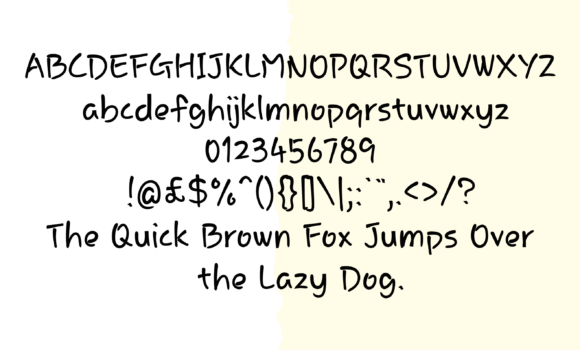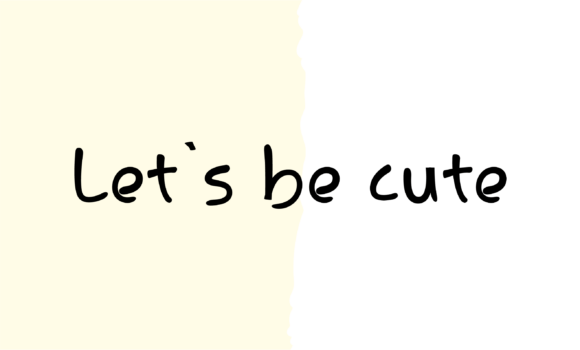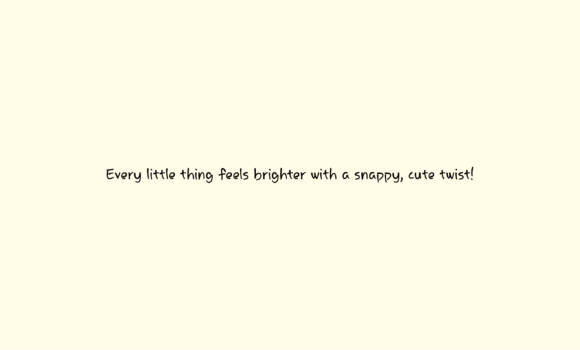
Introduction to Snappy Cute Font
Have you ever stumbled upon a design that instantly puts a smile on your face? For many creatives, that moment of pure joy is a result of discovering a high-quality design resource that elevates their project to the next level. For us, that moment came when we found the Snappy Cute Font – a playful, friendly font that captures a youthful, “doodle-like” spirit.
As designers, we’re always on the lookout for the perfect typeface to bring our creative visions to life. With its rounded terminals and casual structure, the Snappy Cute Font is an excellent choice for adding a lighthearted touch to any project. Whether it’s a children’s product, school poster, or social media content, this font is sure to deliver a sense of fun and approachability.
What sets the Snappy Cute Font apart is its ability to bring a smile to our faces, making it an invaluable design resource for any creative project. With its transparent background and free download, it’s easy to incorporate into your next design. So, let’s dive into the world of Snappy Cute Font and explore its endless possibilities!
Key Features of Snappy Cute Font
- Includes a range of characters and glyphs, including uppercase and lowercase letters, numbers, and special characters.
- Designed with a playful and modern aesthetic, making it perfect for adding a touch of whimsy to your creative project.
Honest Review: Snappy Cute Font
As a designer, I’m always on the lookout for high-quality design resources to elevate my creative projects. Snappy Cute Font has caught my attention, and I’m excited to share my honest review.
What works well: ✨ The font is incredibly versatile, making it perfect for a wide range of designs, from children’s books to social media graphics. The transparent background option allows for seamless integration with any background image or color. The free download is also a huge plus, making it accessible to designers of all levels.
What doesn’t work well: ⚠️ While the font is generally well-designed, some characters may appear slightly pixelated at larger font sizes. Additionally, the font family is relatively small, with only a handful of weights and styles available.
Overall, I’d say Snappy Cute Font is a solid addition to any designer’s toolkit. Its ease of use, high-quality design, and transparent background make it a great choice for a variety of creative projects. If you’re looking for a reliable font to add some visual interest to your designs, Snappy Cute Font is definitely worth considering.
Snappy Cute Font is a high-quality design resource perfect for your next creative project. With its adorable and playful style, this font is ideal for various applications.
Tips for Getting the Most Out of Snappy Cute Font
- Use the Snappy Cute Font in conjunction with other design elements to create a cohesive look.
- Experiment with different font sizes and styles to add visual interest to your design.
- Birthday invitations and party decorations.
- Children’s book illustrations and typography.
- Wedding invitations and wedding decorations.